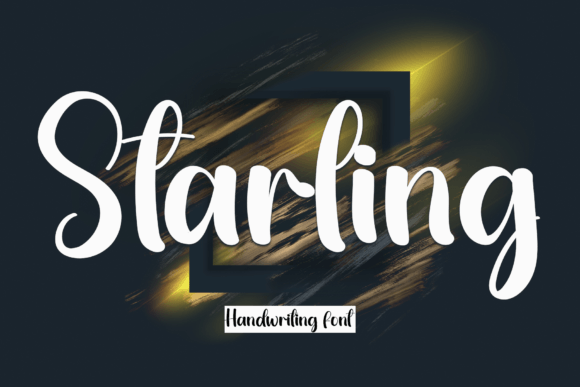
Embark on an artistic journey with Starling Font, a captivating script font that exudes elegance and charm. Crafted with meticulous precision by Creatype Designer, Starling is not just a font; it's an expression of creativity, a dance of letters that will transform your designs into captivating masterpieces.
Step into a world of visual enchantment where words come alive with Starling's graceful curves and dynamic strokes. This font is a symphony of beauty, designed to evoke emotion and captivate audiences with its timeless charm.
Starling's versatility knows no bounds, making it the perfect choice for a myriad of creative projects. Whether you're designing logos, crafting invitations, creating social media posts, or writing blog headers, Starling will elevate your designs to new heights.
With its impeccable form and balanced structure, Starling brings harmony and sophistication to your projects. Each letter is a work of art, carefully crafted to create a visually stunning composition. The font's unique character adds a touch of elegance and personality, making your designs truly unforgettable.
Unleash your creativity and let Starling be your muse. Its contemporary atmosphere is perfect for modern designs, while its classic calligraphy roots add a touch of timeless charm. From delicate wedding invitations to bold branding projects, Starling adapts effortlessly to any style, adding a touch of sophistication and artistry.
Experience the transformative power of Starling Font and witness your designs come alive with unparalleled beauty and grace. Embrace the endless possibilities and allow your imagination to soar as you create captivating visuals that leave a lasting impression.